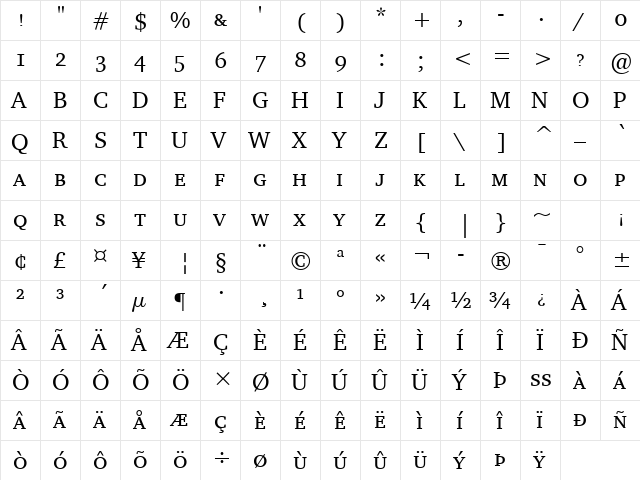
Charter SC ITC TT Regular
Design Context for Charter SC ITC TT Typeface
Charter SC ITC TT takes a measured approach to typography — its balanced proportions and neutral character make it a reliable workhorse for both digital and print work.